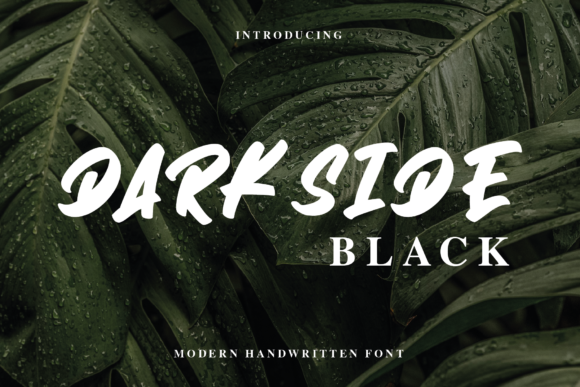
Unleash Your Creativity with Darkside Font: A Cool and Brushed Display Font
Are you a designer or crafter looking for a unique and stylish font to elevate your creative projects? Look no further than Darkside Font, a cool and brushed display font that’s sure to make a statement. In this article, we’ll dive into the features and benefits of Darkside Font, and explore how you can use it to take your designs to the next level.
What is Darkside Font?
Darkside Font is a modern, brushed display font that’s perfect for creating bold and eye-catching designs. Its unique, hand-crafted aesthetic gives it a distinctive look that’s sure to grab attention. Whether you’re working on a logo, poster, or social media graphic, Darkside Font is the perfect choice for adding a touch of edginess and sophistication.
One of the standout features of Darkside Font is its PUA (Private Use Area) encoding. This means that you can access all of the font’s glyphs and swashes with ease, giving you even more creative possibilities. With PUA encoding, you can effortlessly add flourishes and decorative elements to your designs, taking them from ordinary to extraordinary.
Features and Benefits of Darkside Font
So, what makes Darkside Font so special? Here are just a few of its key features and benefits:
- Unique, hand-crafted aesthetic: Darkside Font has a distinctive, brushed look that’s perfect for creating bold and eye-catching designs.
- PUA encoded: Easily access all of the font’s glyphs and swashes, giving you maximum creative flexibility.
- High-quality design: Darkside Font is designed to the highest standards, ensuring that your designs look professional and polished.
How to Use Darkside Font in Your Designs
So, how can you start using Darkside Font in your designs? Here are a few ideas to get you started:
- Logos and branding: Use Darkside Font to create a bold and memorable logo that’s sure to stand out.
- Posters and flyers: Add a touch of edginess to your posters and flyers with Darkside Font’s unique, brushed aesthetic.
- Social media graphics: Use Darkside Font to create eye-catching social media graphics that are sure to grab attention.
- Packaging and product design: Add a touch of sophistication to your packaging and product designs with Darkside Font’s high-quality, brushed aesthetic.
Tips and Tricks for Getting the Most Out of Darkside Font
Here are a few tips and tricks for getting the most out of Darkside Font:
- Experiment with different colors and textures: Darkside Font looks great in a range of colors and textures, so don’t be afraid to experiment and find the perfect combination for your design.
- Use the font’s glyphs and swashes: Take advantage of Darkside Font’s PUA encoding to add flourishes and decorative elements to your designs.
- Pair with other fonts: Darkside Font pairs well with a range of other fonts, so try combining it with other fonts to create a unique and interesting look.
| Font Name | Darkside Font |
| Author | aldedesign |
In conclusion, Darkside Font is a cool and brushed display font that’s perfect for designers and crafters looking to add a touch of edginess and sophistication to their creative projects. With its unique, hand-crafted aesthetic and PUA encoding, Darkside Font offers endless creative possibilities. So why wait? Download Darkside Font today and start unleashing your creativity!